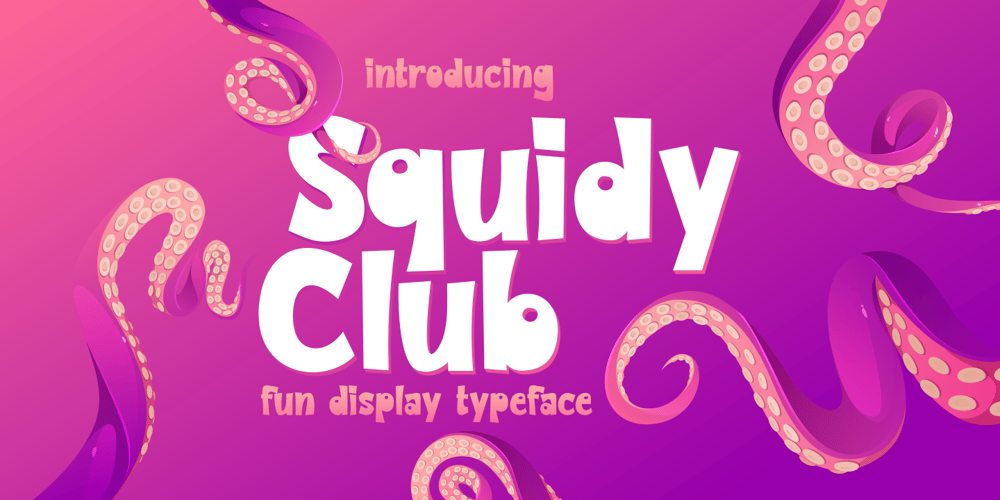
Squidy Club
Squidy Club font
Squidy Club Font Family was designed by Raditya Putra Pratama and published by Raditya Type. Squidy Club contains 1 styles and family package options. Squidy Club is a fun display font, fresh & modern style. Squidy Club Font suitable for logo, branding, greeting card, poster and any design that you create.Thank you for checking and i hope you enjoy it. Always put your heart into it and don’t worry to try. I hope you have as much fun using it as i did making it.